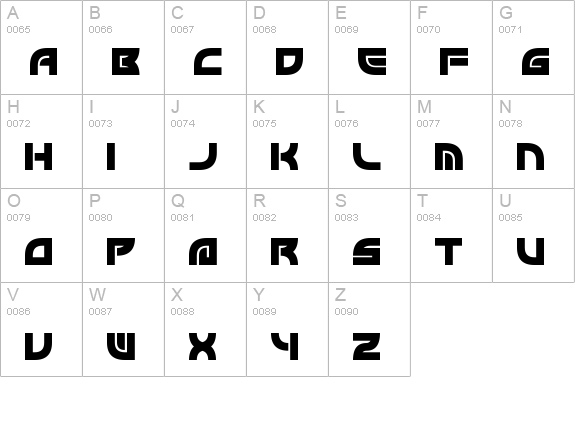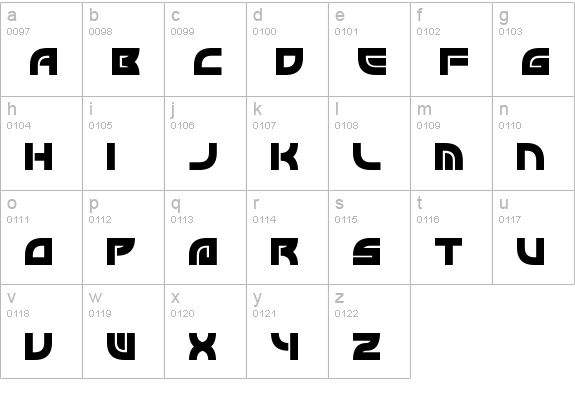
The Byron font is a beautifully crafted typeface that exudes elegance and sophistication. With its sleek lines and stylish curves, Byron is perfect for adding a touch of class to any design project. Whether you're creating invitations, logos, or any other creative work, this font will help you make a statement. Best of all, Byron is available for free download at FontsMarket.com, making it accessible to all designers looking to elevate their creations with a touch of luxury. Don't miss out on the opportunity to add this stunning font to your collection today!